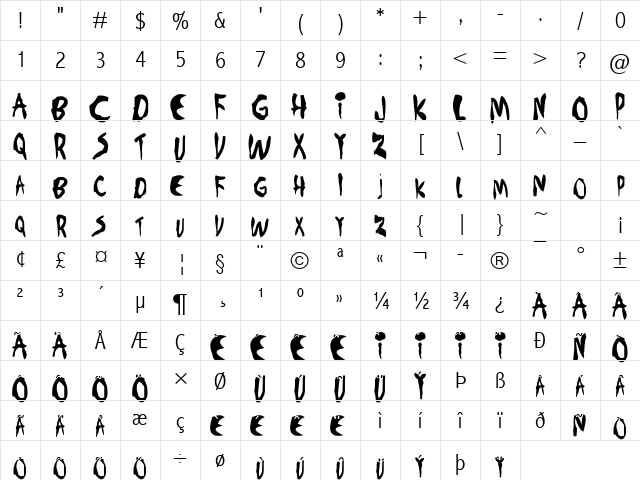
MaliceInChains Regular
Complete MaliceInChains Regular glyph index. Displaying only characters natively supported by MaliceInChains Regular font.
Design Context for MaliceInChains
MaliceInChains is a composed and adaptable typeface that performs quietly and consistently across a wide range of design contexts.
Pro Tip: Use MaliceInChains in both headline and body roles to test its range before committing to a single application.